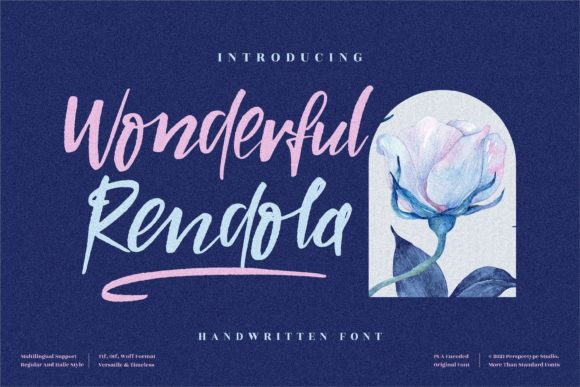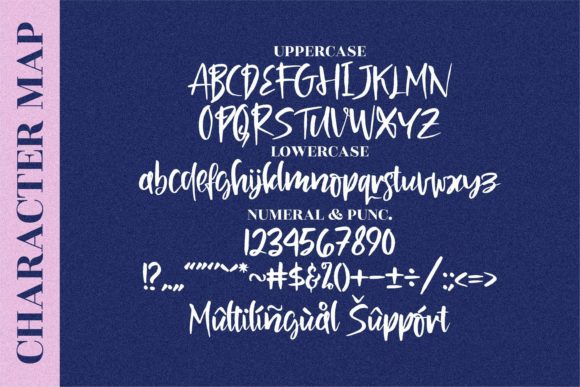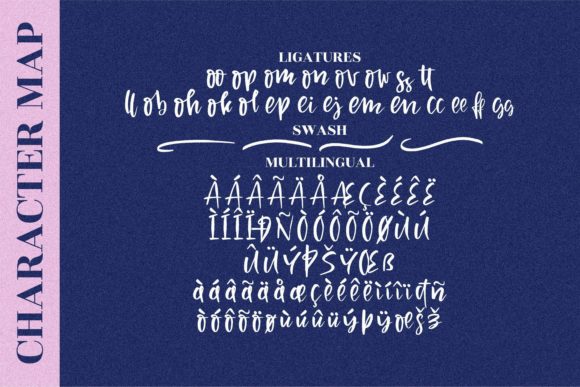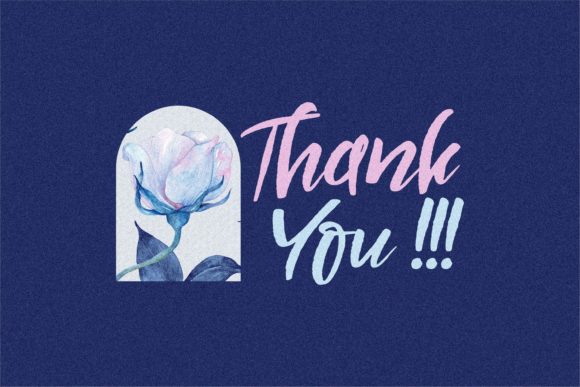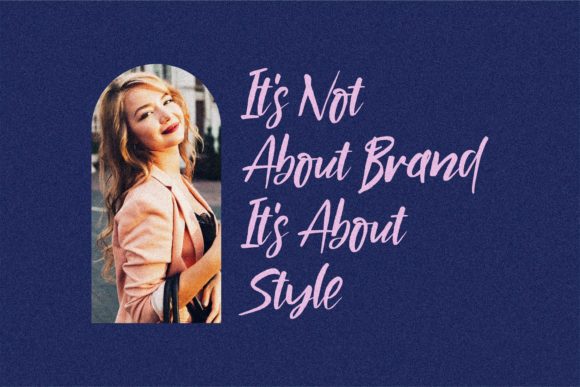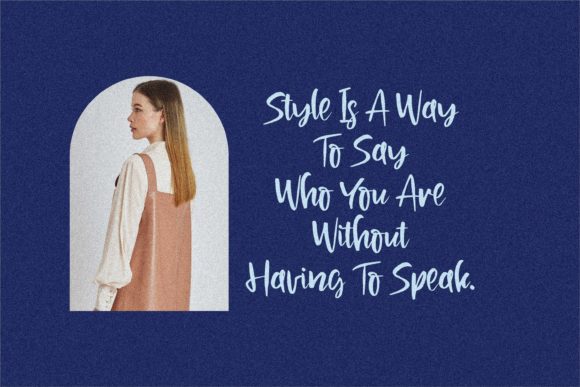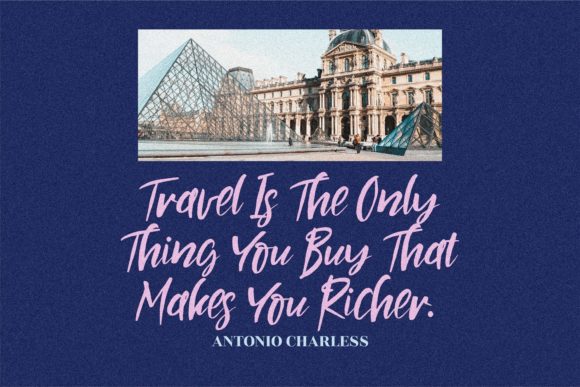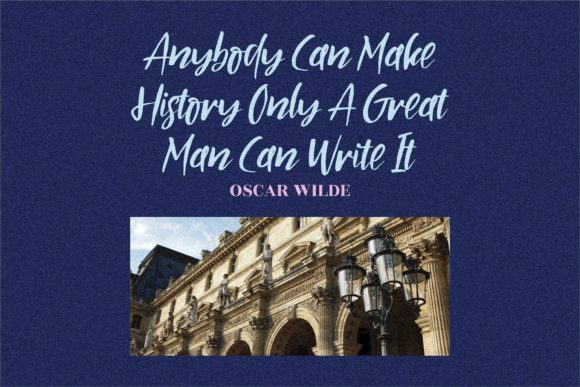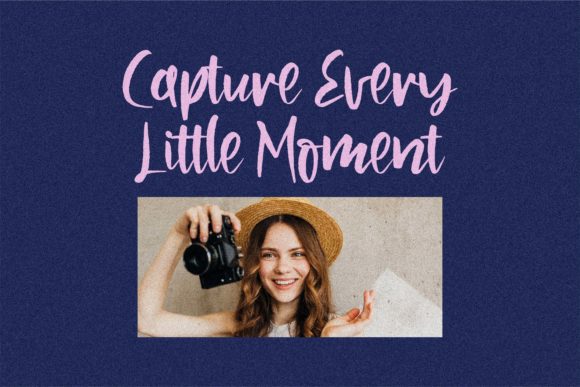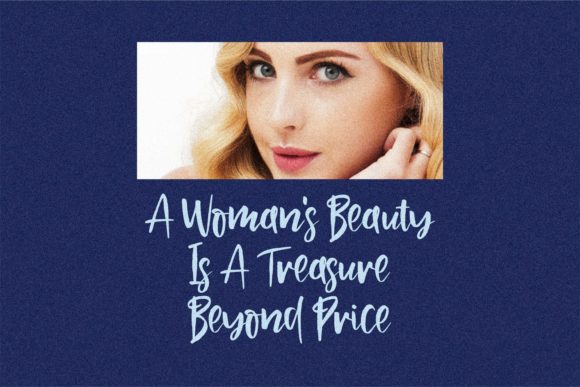
Wonderful Rendola Font
About Wonderful Rendola Font
Wonderful Rendola is a sweet and delicate handwritten font. Dainty and joyful, this font will be ideal for writing wedding invitations, cards or any other design that may need a romantic, personalized touch!